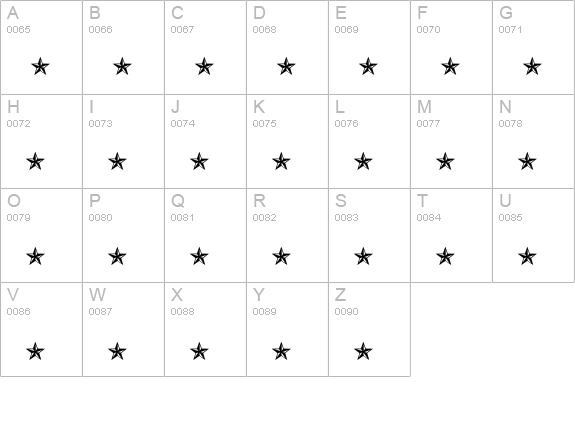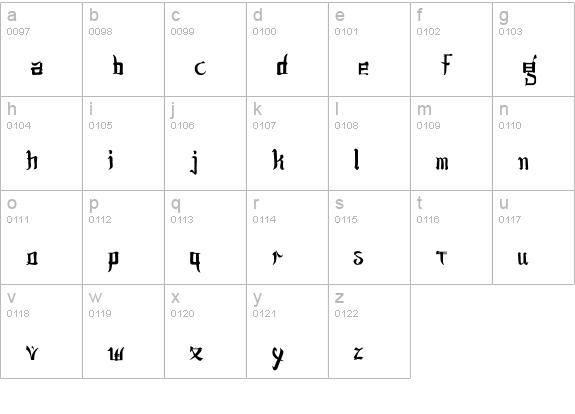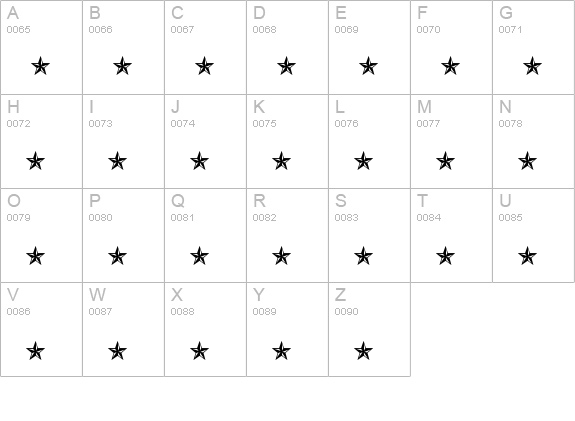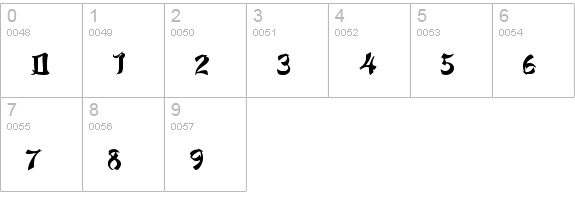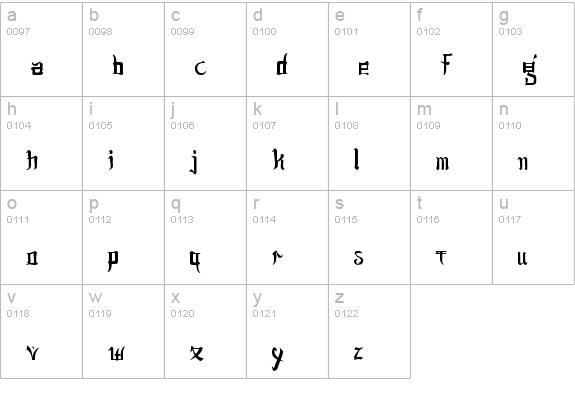
jsa lovechinese Font Details
The JSA LoveChinese font is a beautifully crafted typeface that exudes elegance and charm. Its intricate strokes and intricate design make it perfect for adding a touch of sophistication to your projects. This unique font combines traditional Chinese calligraphy with a modern twist, creating a harmonious blend of old and new. What's even better is that the JSA LoveChinese font is completely free to download! You can find this stunning font available for download at FontsMarket.com, where you can enhance your designs with this exquisite typeface without any cost. Whether you're working on invitations, posters, or branding materials, the JSA LoveChinese font is sure to make a lasting impression with its timeless appeal. Download it today and elevate your designs with this free and captivating font.